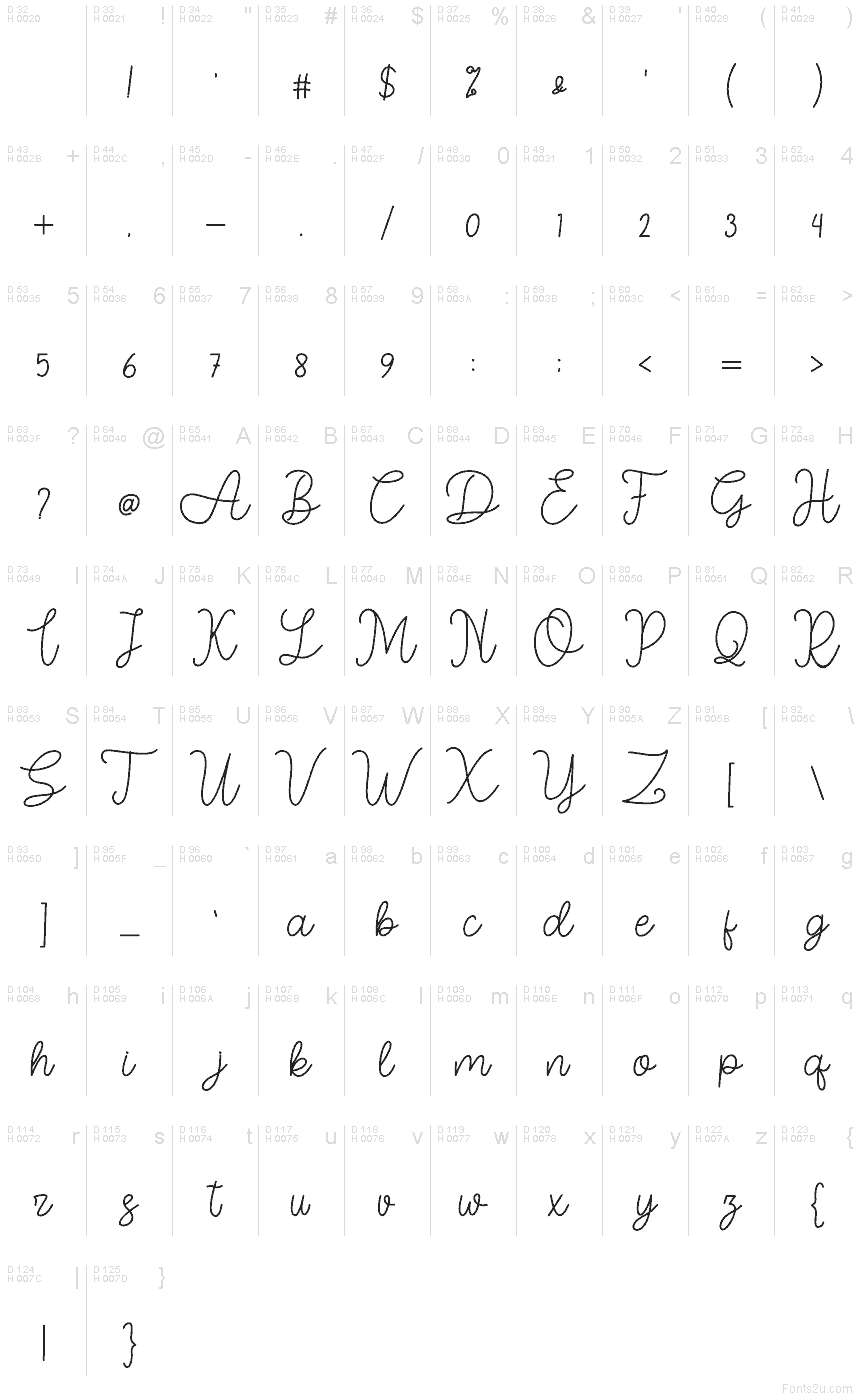
AsllyLastty
AsllyLastty font is a light handwritten typeface designed by Skiiller Studio. Effortless, relaxed, and sophisticated beyond measure, this free font has a handwriting style and organic movement that reflect natural flow in each stroke. Every element in it has casual elegance and impeccable balance which never fail to grab attention without the need for additional design elements.
The casual style of this font makes it ideal for anything wedding-related — invitations, RSVP details cards, save-the-dates etc. Businesses related to wellness will also benefit from its use on social media posts, logo designs or ads they might run across different platforms online.